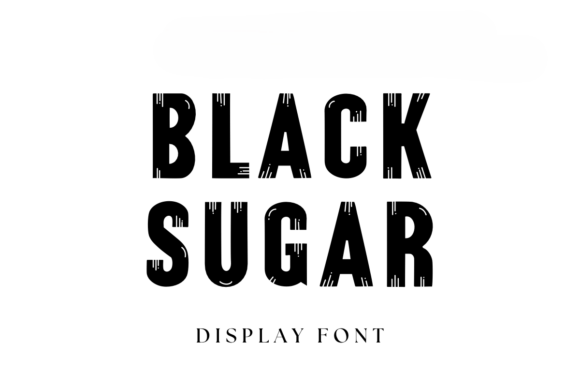
The Sweet Spot: Discovering the Bold Charm of Black Sugar Font
I’ll never forget the design project that led me to Black Sugar Font. I was working on a bold poster for a streetwear brand, and I needed a font that could capture the gritty, urban vibe of the clothing line. After scouring through countless font libraries, I stumbled upon Black Sugar – and it was love at first sight! ✨ The chunky letterforms and unique drip-style cuts instantly caught my attention, and I knew I had found the perfect fit.
- ✨ Bold and eye-catching: Black Sugar Font is perfect for making a statement with your designs.
- ✅ Unique drip-style cuts: The font’s distinctive feature adds a playful twist to traditional bold typography.
- 💯 Versatile: From posters to branding and packaging, Black Sugar Font can elevate a wide range of creative projects.
- 🎨 Blends fun and strength: The font effortlessly balances playfulness with a strong, gritty charm.
While Black Sugar Font is an amazing addition to any design project, there are a few things to keep in mind: 🤔
- ⚠️ Limited legibility at small sizes: Due to its bold and chunky nature, Black Sugar Font may not be the best choice for body text or small font sizes.
- ⚠️ Not ideal for long-form content: The font’s playfulness and uniqueness make it better suited for headlines, titles, and short phrases rather than lengthy paragraphs.
The Designer’s Inspiration: A Backstory
Black Sugar Font was inspired by the gritty streets of urban cities, where graffiti and street art thrive. The font’s designer aimed to capture the bold and playful spirit of street culture, blending fun and strength in a unique and eye-catching way. While the designer’s identity remains a mystery, their creation has undoubtedly made a lasting impact on the world of typography.
| Font Name | Black Sugar Font |
| Author | Nun Sukhwan |
Q: What type of projects is Black Sugar Font best suited for?
A: Black Sugar Font is perfect for posters, branding, packaging, and any project that needs a bold and eye-catching visual impact.
Q: Is Black Sugar Font available in different styles or weights?
A: Currently, Black Sugar Font is available in a single bold weight. However, the font’s unique drip-style cuts and OpenType features offer a range of creative possibilities.
Q: Can I use Black Sugar Font for digital and print projects?
A: Absolutely! Black Sugar Font is versatile and can be used for both digital and print projects, from social media graphics to billboards and posters.